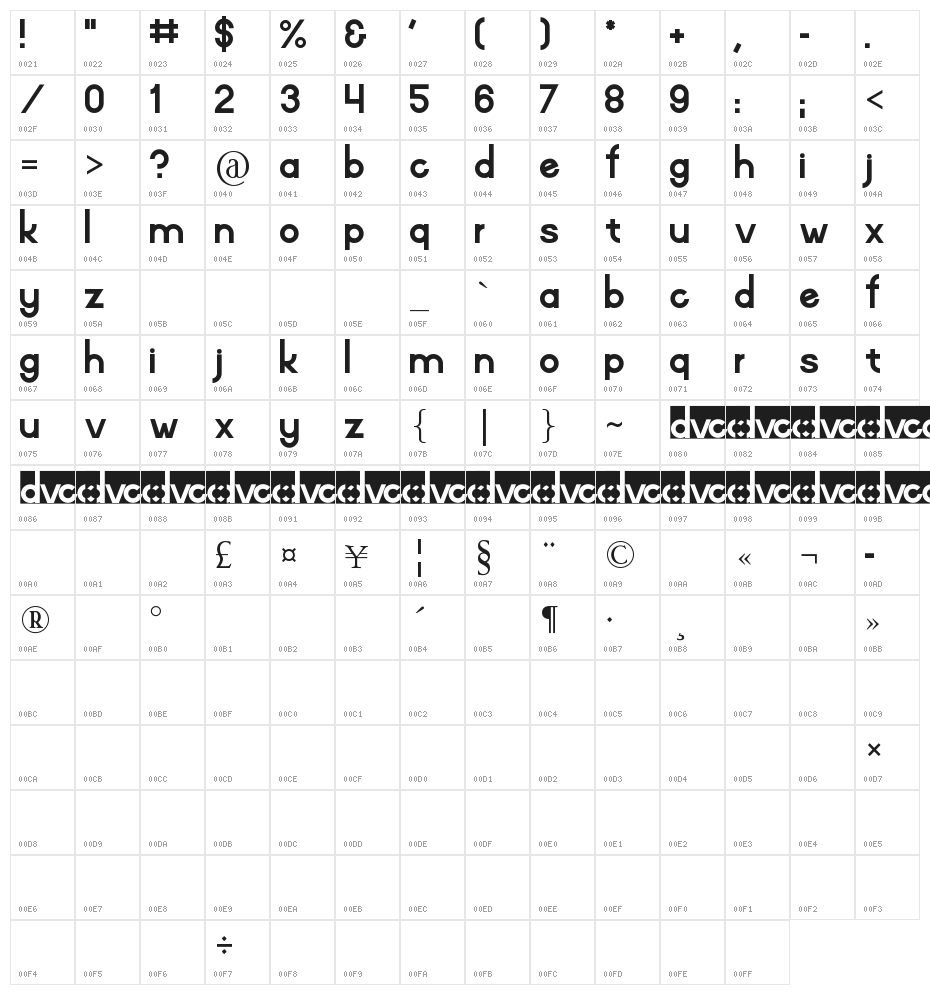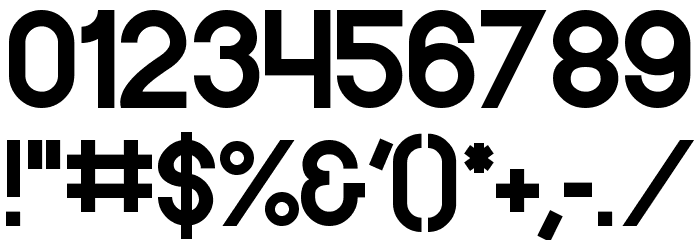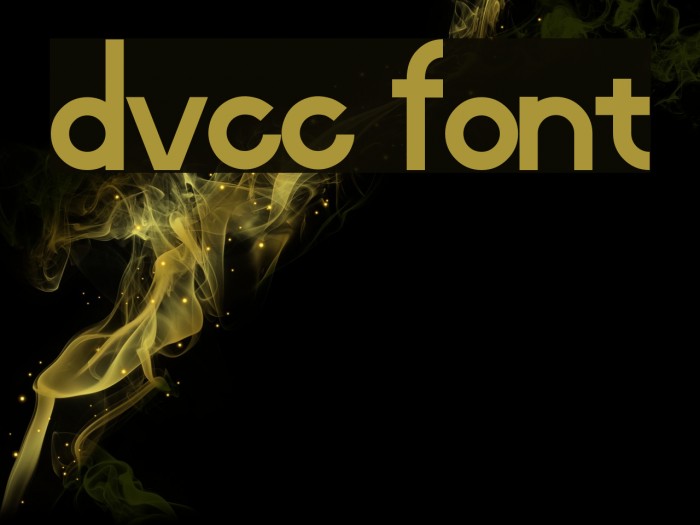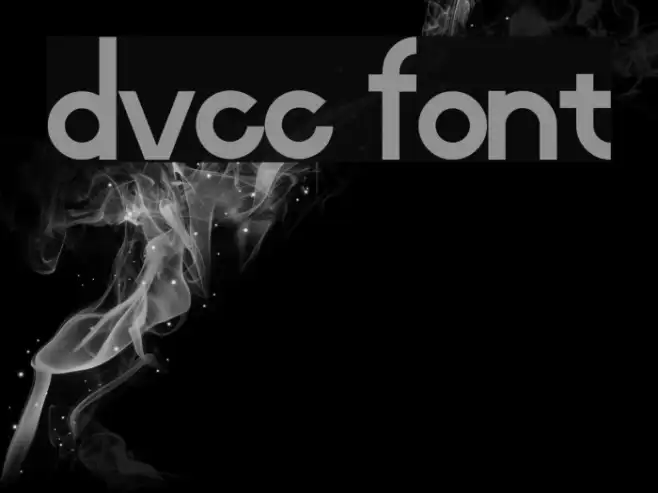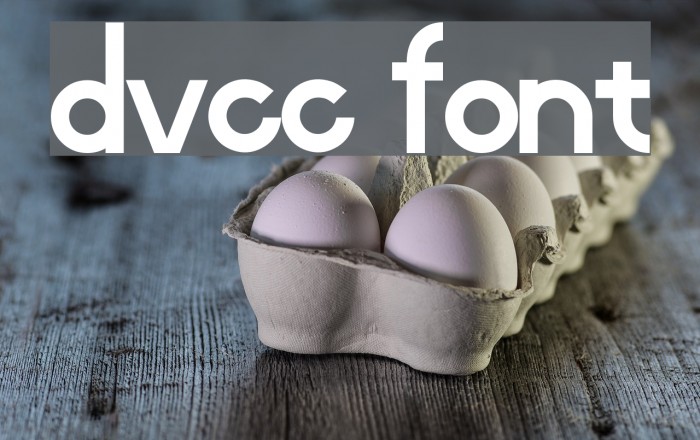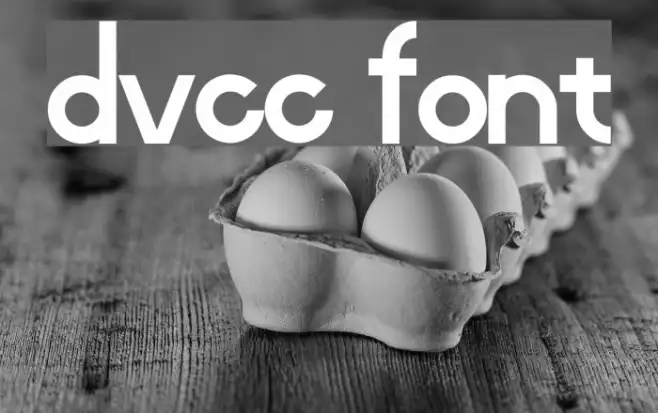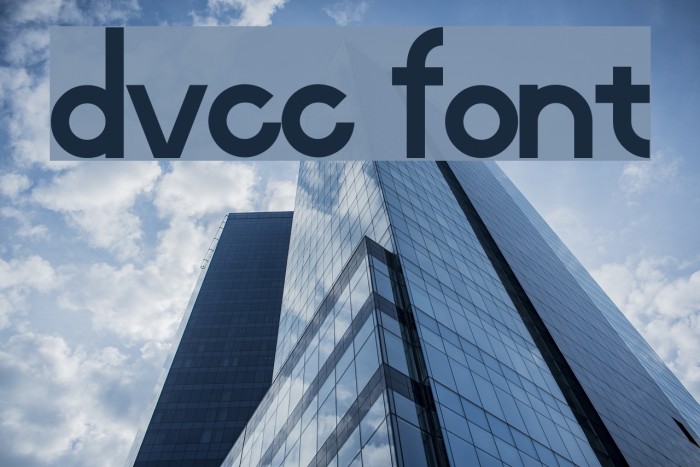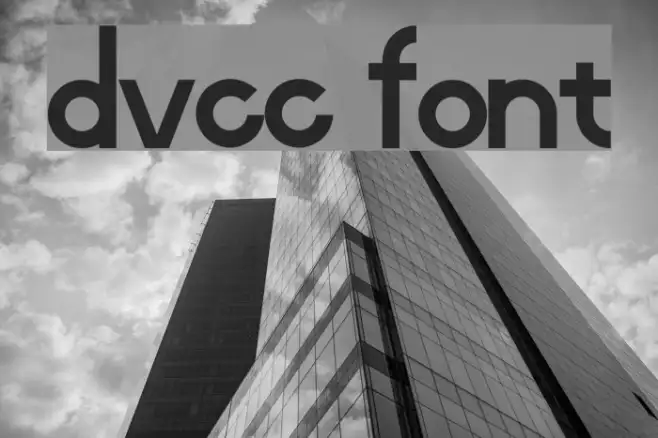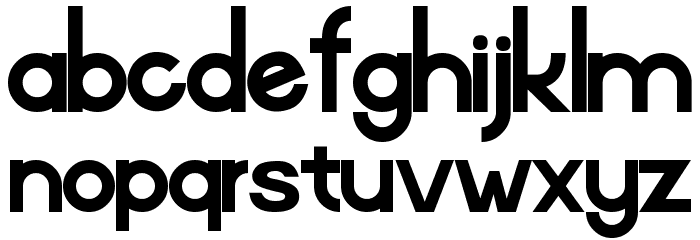
dvcc Font
dvcc Description
This font features a bold, geometric design with a modern aesthetic. Each character is crafted with clean lines and a consistent stroke width, creating a uniform appearance. The rounded edges and circular forms give it a friendly and approachable feel, while maintaining a sense of professionalism. The uppercase and lowercase letters are well-balanced, and the numerals are clear and legible. Special characters are included, maintaining the same stylistic elements as the alphanumeric characters. The overall design is versatile, making it suitable for a variety of applications.